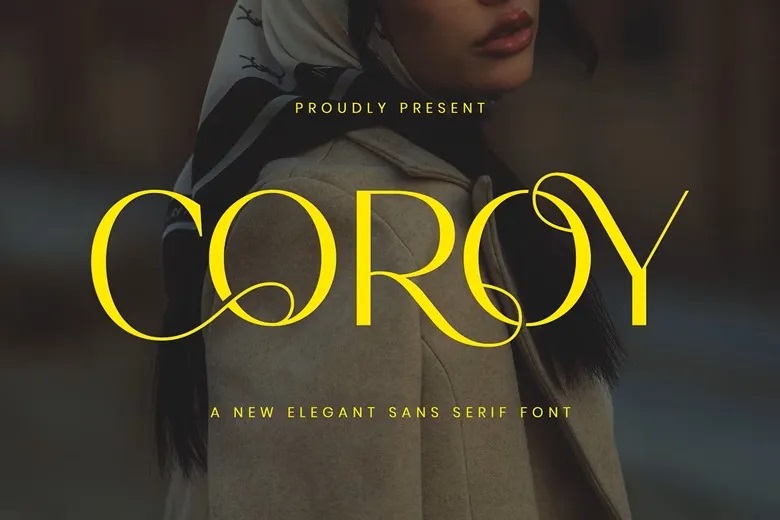
Coroy Font
Coroy is a new elegant sans serif font inspired by the famous minimalist logo perfect for the purposes of designing templates, brochures, videos, advertising branding, logos, invitation, layout design, elegant crafting, beauty design and other.
Coroy Sans Serif Font